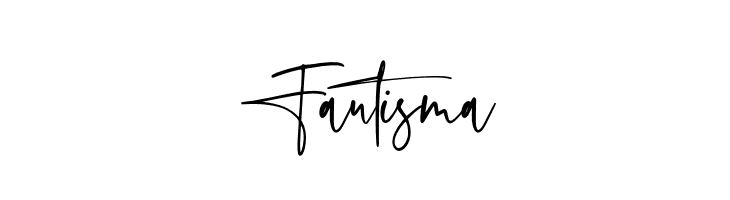
A lively and dynamic handwritten font with fluid strokes and a playful style.
A casual and elegant handwritten font with fluid strokes.
A bold, expressive handwritten font with dynamic strokes and playful flair.
A bold, flowing script font with elegant curves and dynamic style.
A dynamic and flowing script font with elegant, fluid strokes.
A delicate and elegant script font with flowing, graceful strokes.